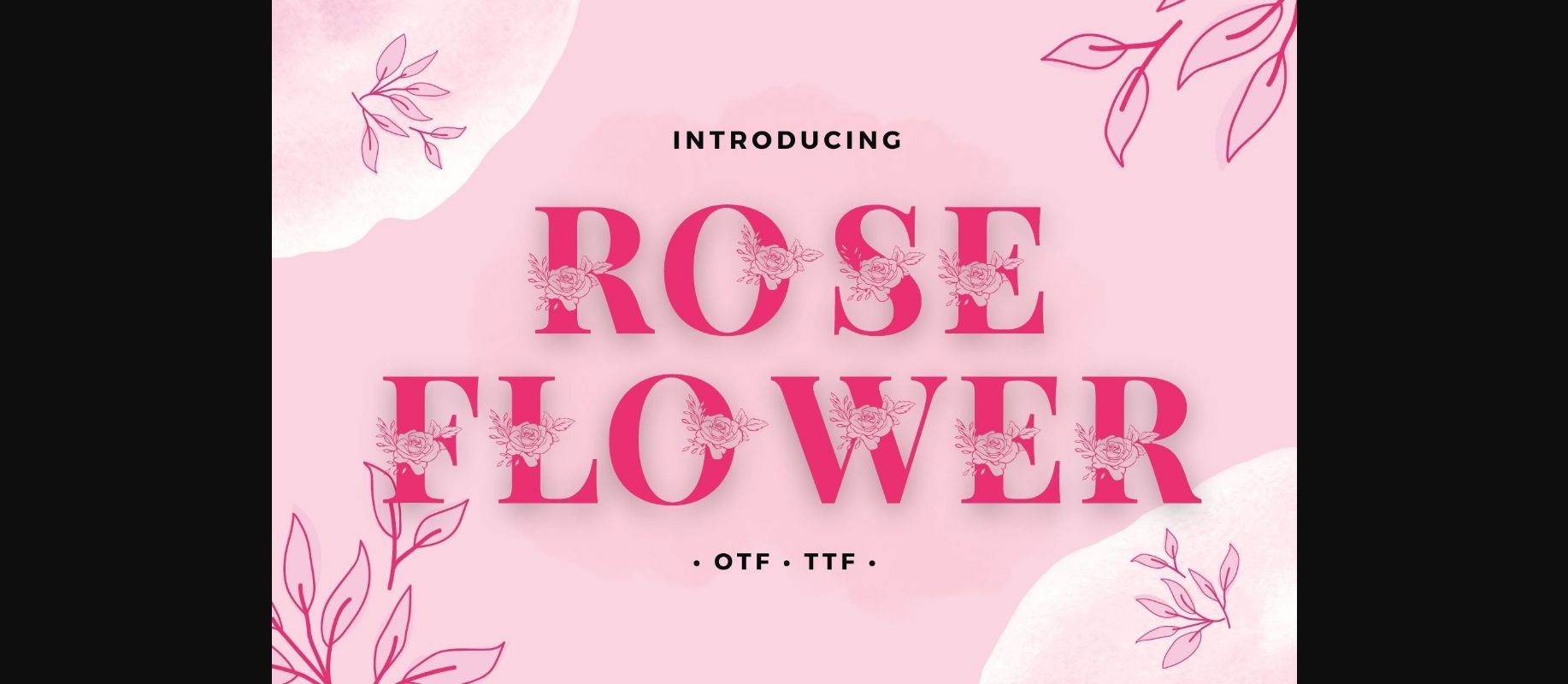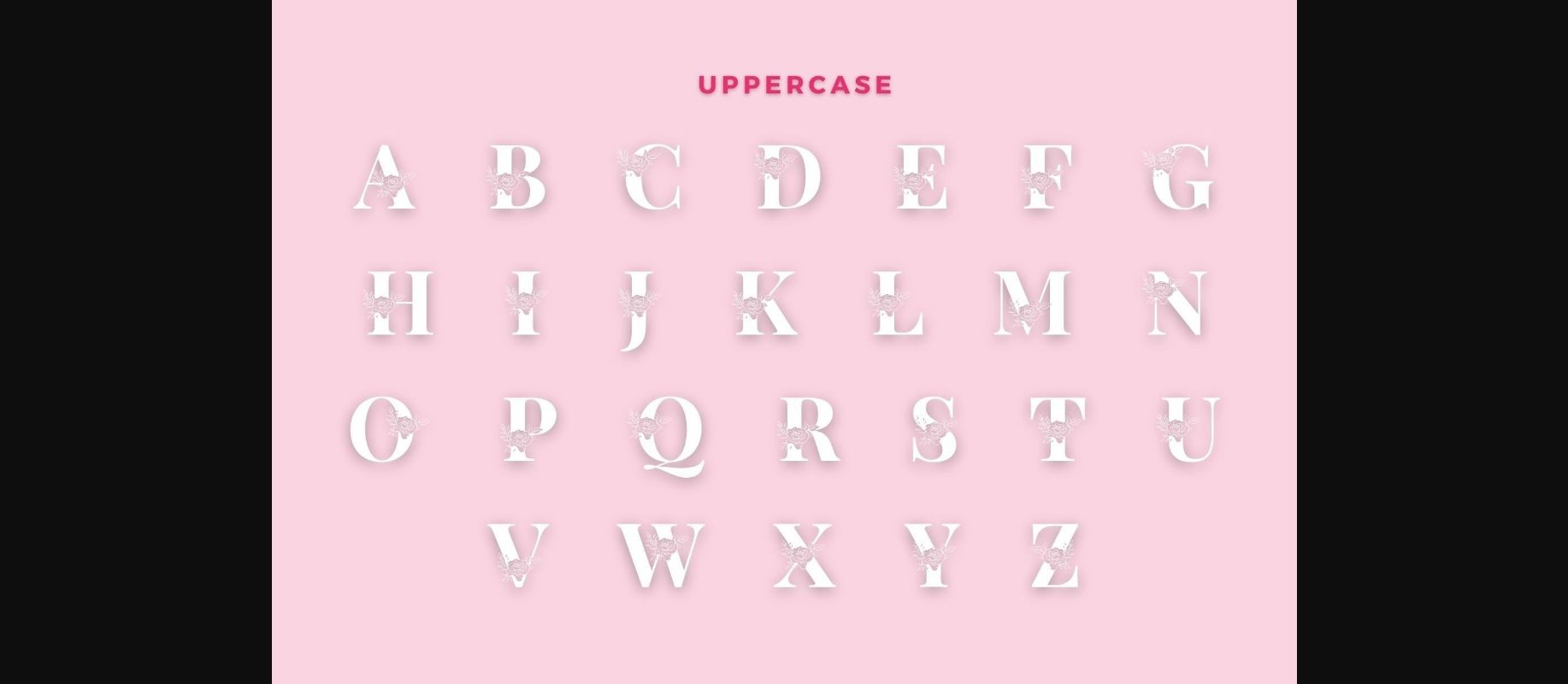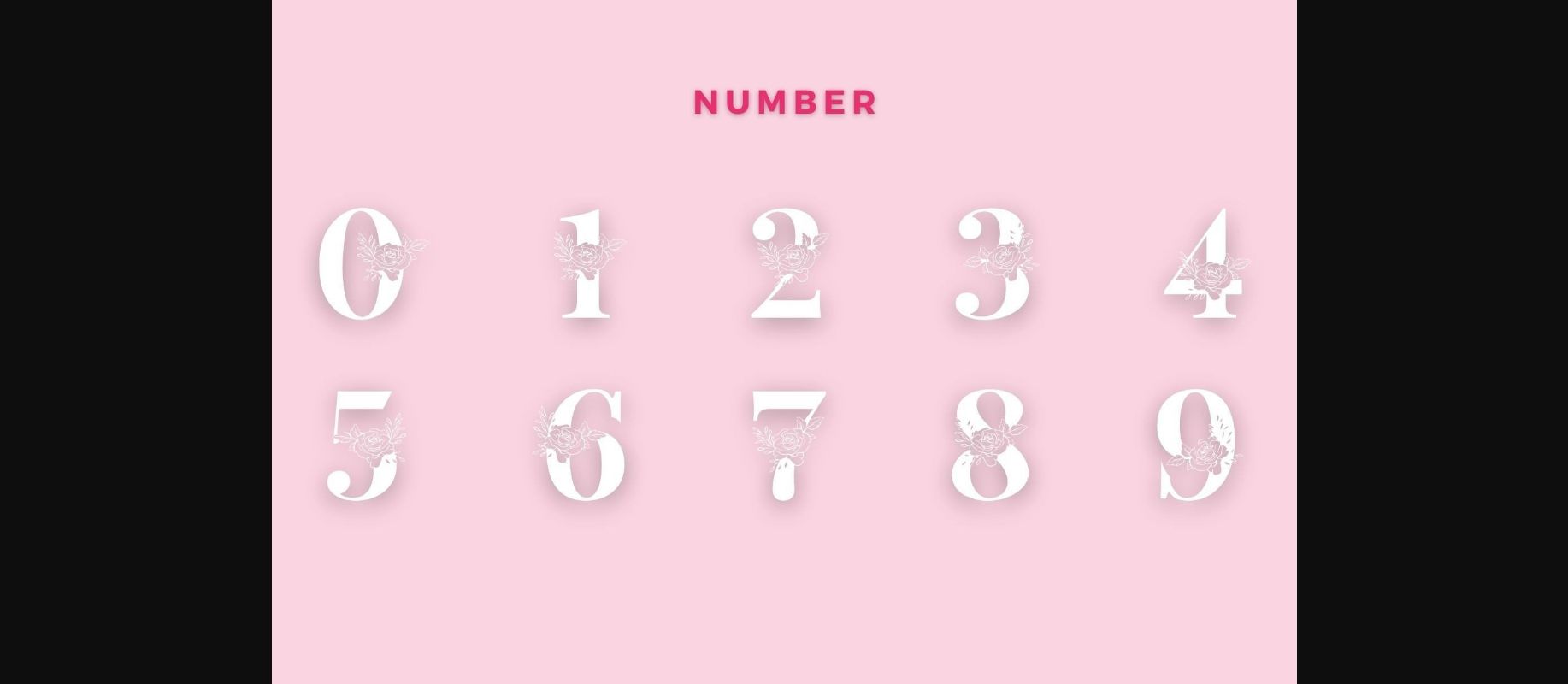
About Rose Flower Font
Rose Flower is an incredibly elegant decorative font, featuring flowers as ornaments. You can use it for various projects, such as blog posts, logos, branding, ads, invitations, greeting cards, planners, photo albums, decorations, and much more. Add it to any of your designs, and enjoy the results!